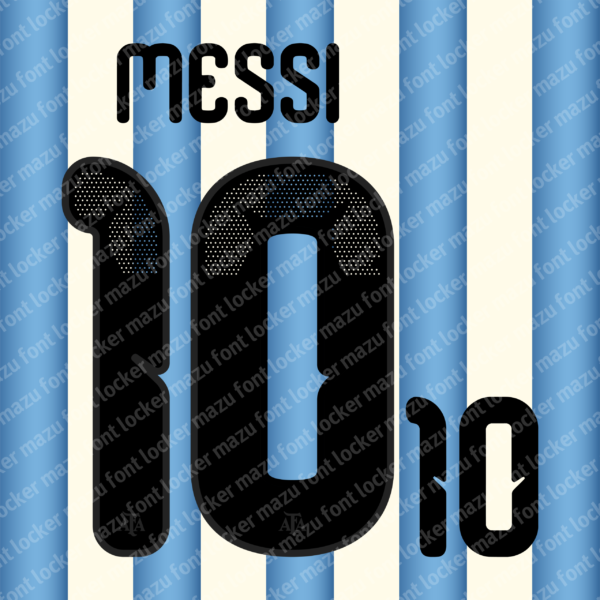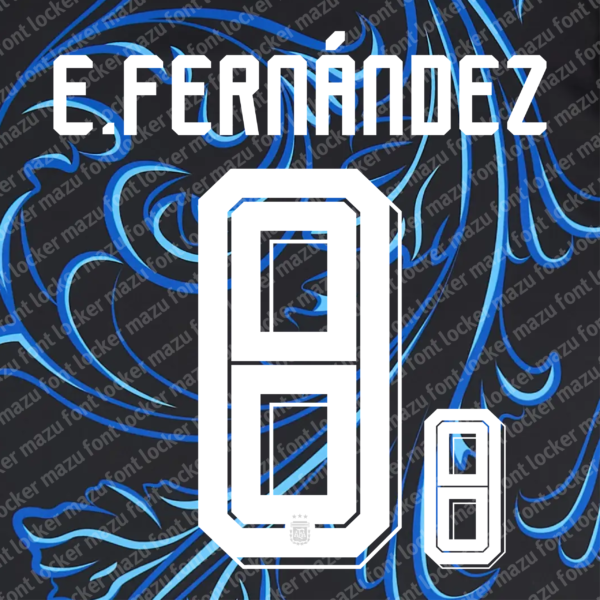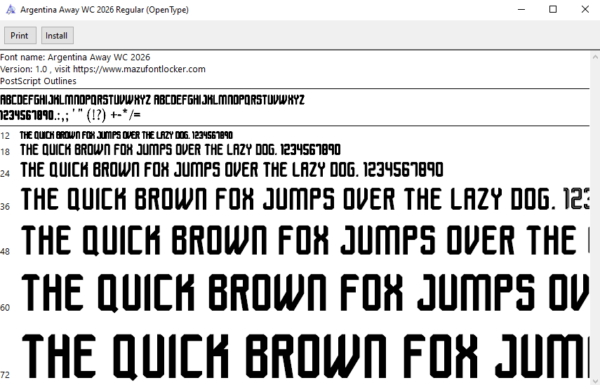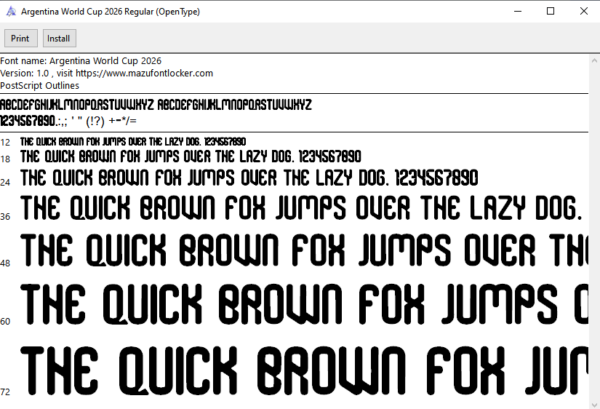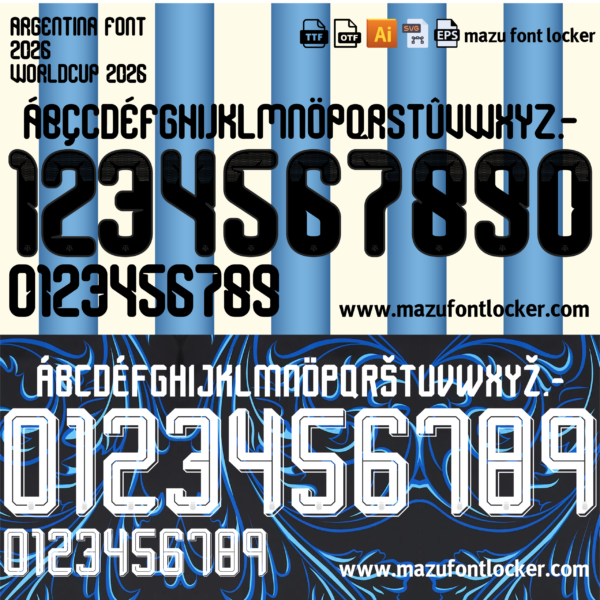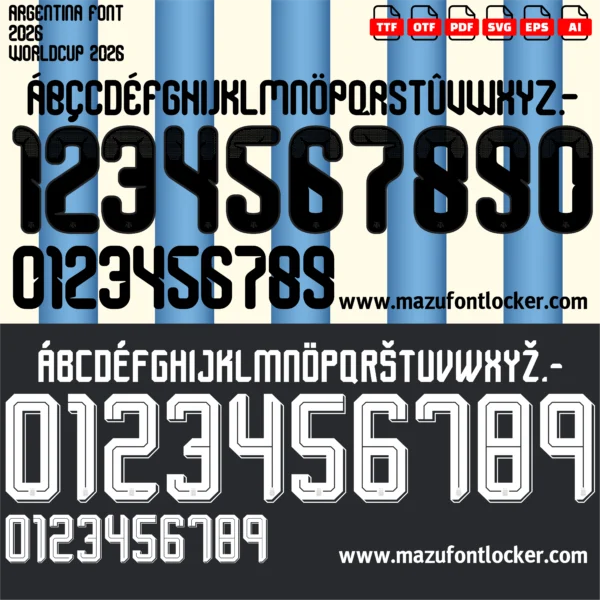
Argentina World Cup 2026 Font Vector – Triumphant Albiceleste Masterpiece
This premium font captures the commanding, majestic war-machine lettering that embodies the unstoppable Albiceleste spirit — delivering raw Argentine fire, explosive Messi passion, iron-clad resilience, and legendary warrior grit that shook the entire football world.
Argentina World Cup 2026 Font Vector – Authentic Albiceleste Typeface
The Argentina World Cup 2026 Font Vector is a premium typeface that accurately recreates the official match lettering worn by the Argentina national team during the 2026 FIFA World Cup campaign. This high-quality vector font kit captures the bold, passionate, and iconic typography that represents the pride, passion, and rich football heritage of La Albiceleste.
Designed for professional designers and passionate Argentina fans, the Argentina World Cup 2026 Font Vector delivers perfect authenticity for creating realistic jersey mockups, fan merchandise, matchday posters, social media graphics, and Argentine football content. It pairs beautifully with the iconic sky blue and white striped kit featuring the famous Argentina crest.
This font stands out because of its sharp vector precision and strong national identity. Every letter and number is crafted to match the exact style used on the players’ shirts during the 2026 World Cup campaign. Whether you are making realistic kit templates or exciting Albiceleste content, the Argentina World Cup 2026 Font Vector gives your designs that authentic Argentine look.
The letterforms in the Argentina World Cup 2026 Font Vector are tall, bold, and highly readable. The strokes have a strong, clean weight with excellent edge definition that looks powerful on the back of jerseys while maintaining classic South American passion and modern strength.
• Full uppercase A–Z and numbers 0–9 in authentic Argentina World Cup 2026 style